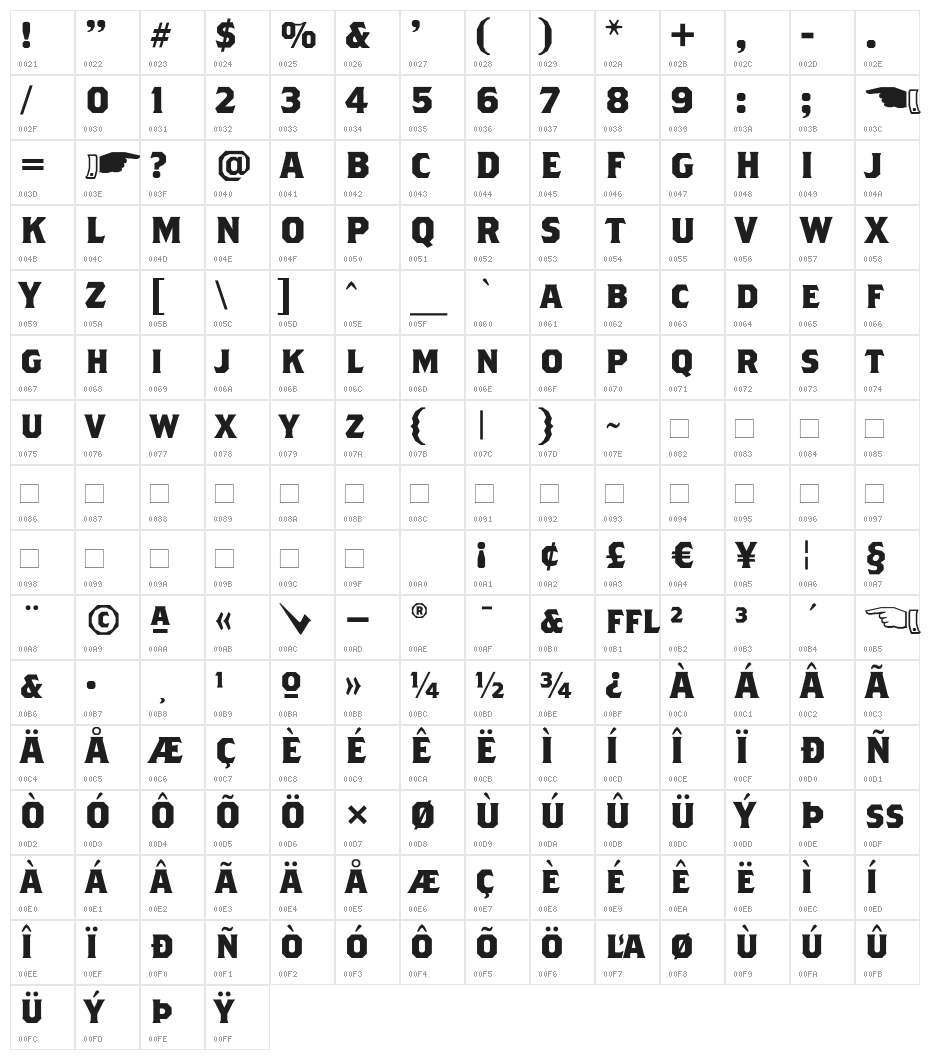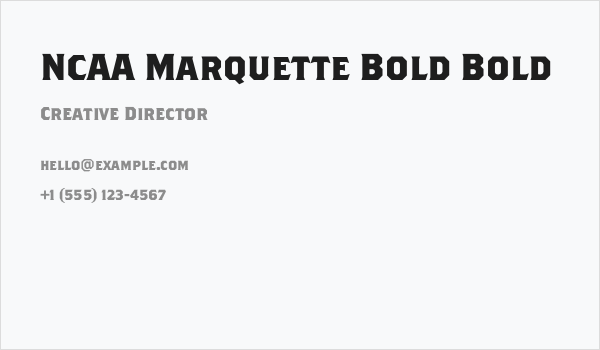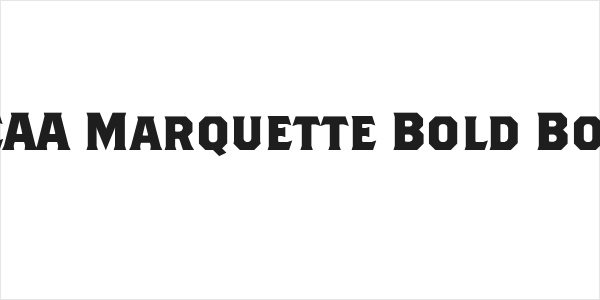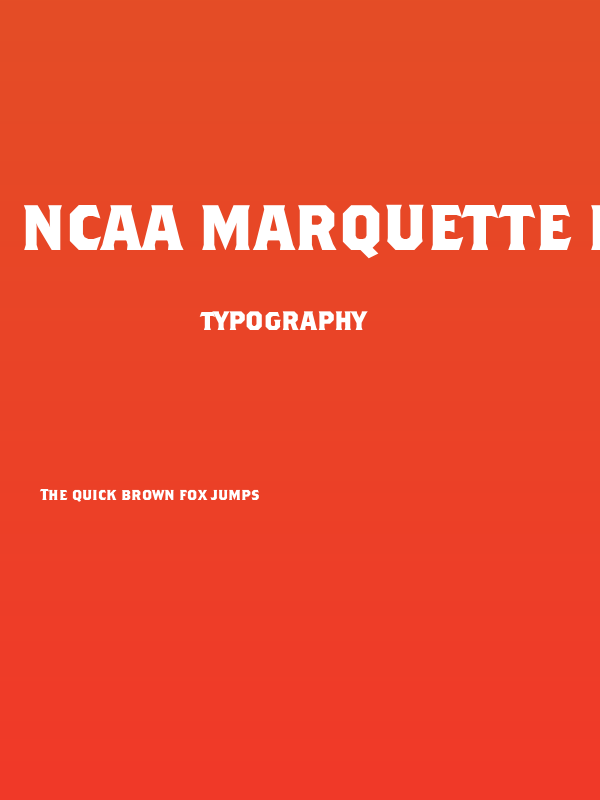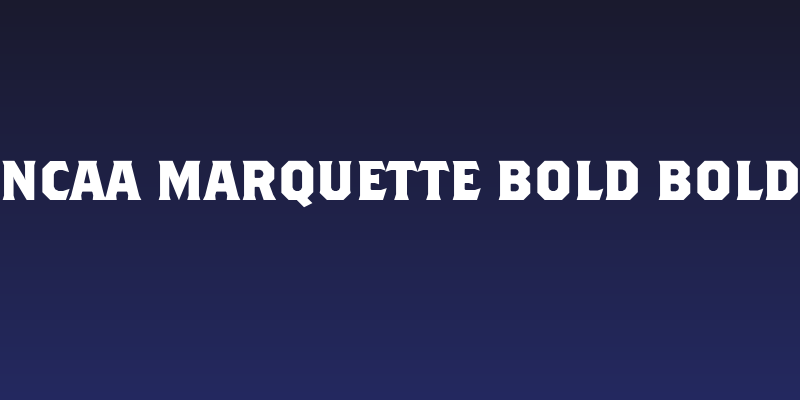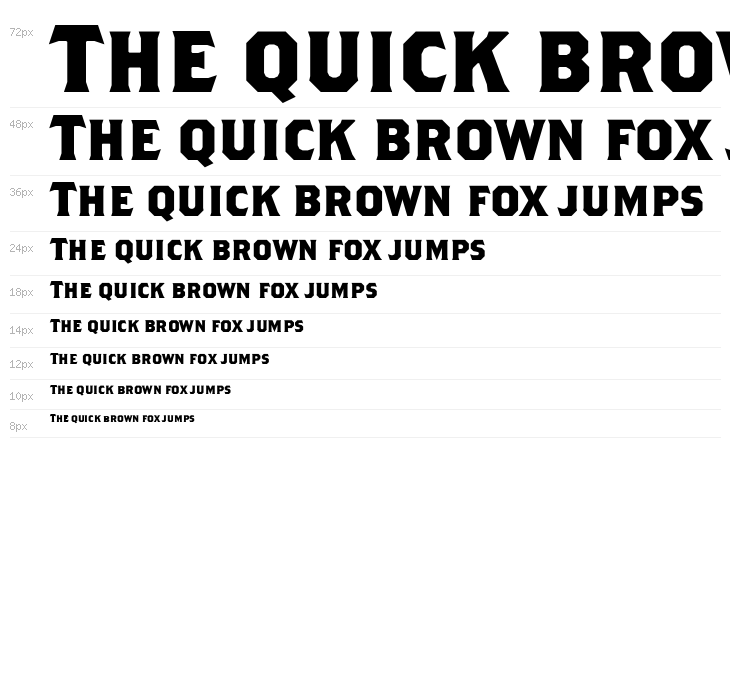
NCAA Marquette Bold Bold Font
| Proiecte propuse | Ideal for sports branding, team logos, posters, and headlines that need to convey strength and authority. |